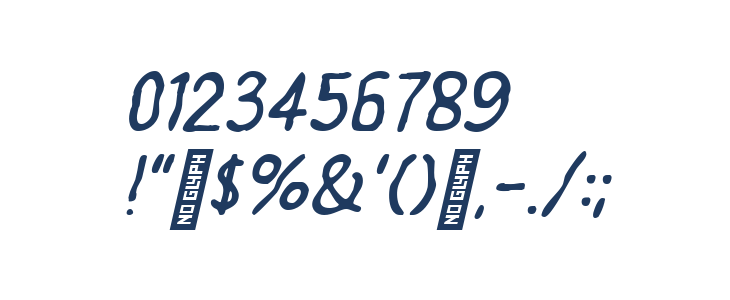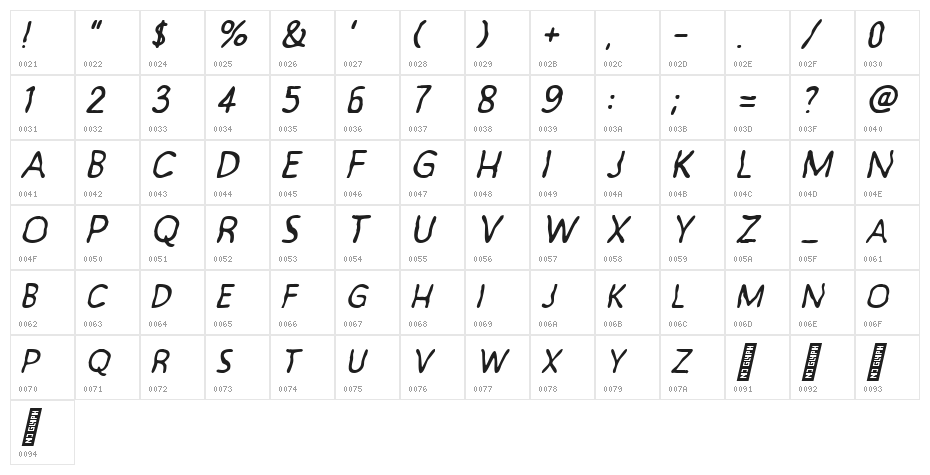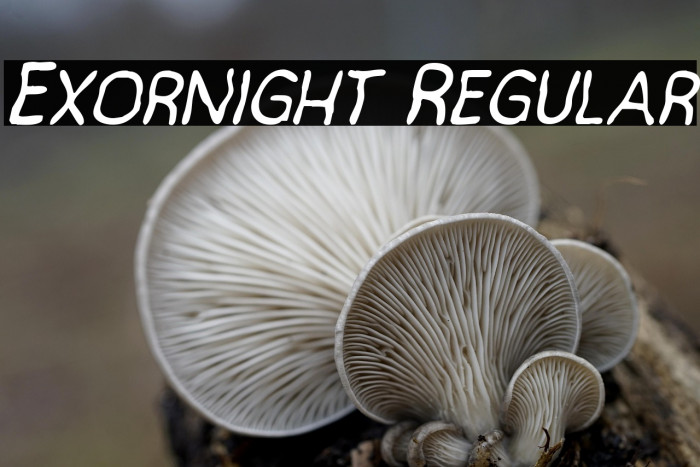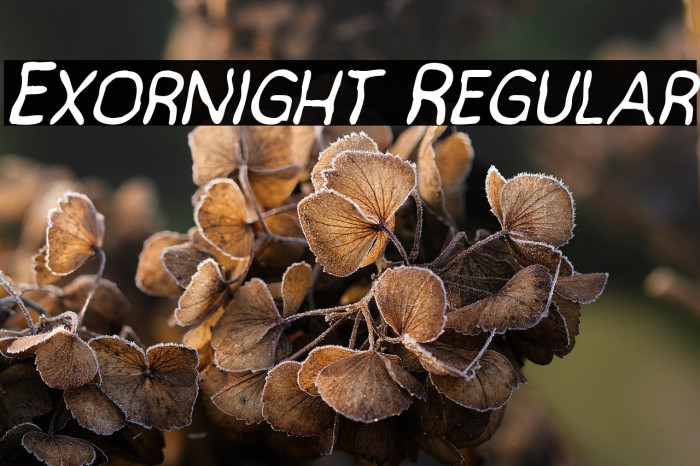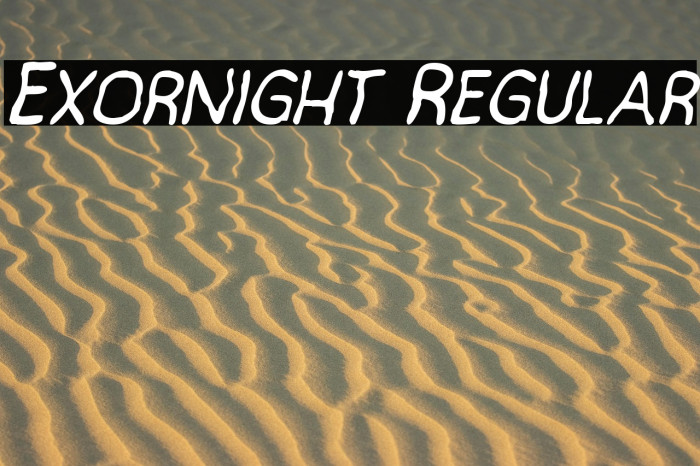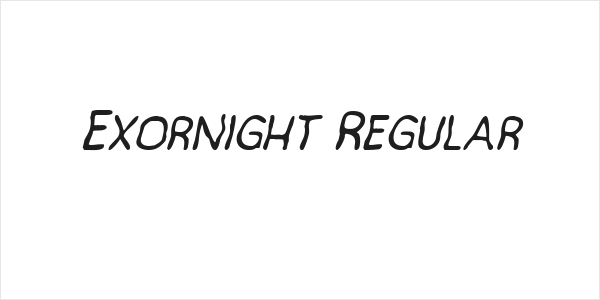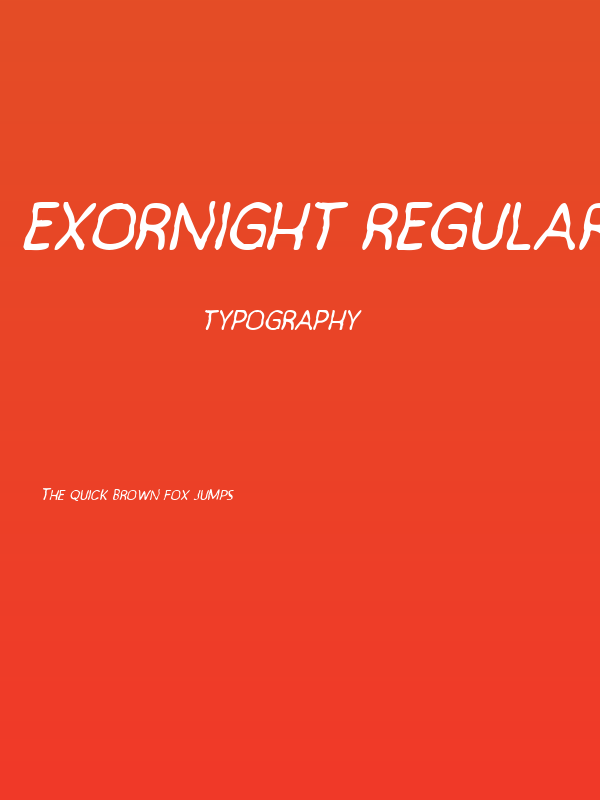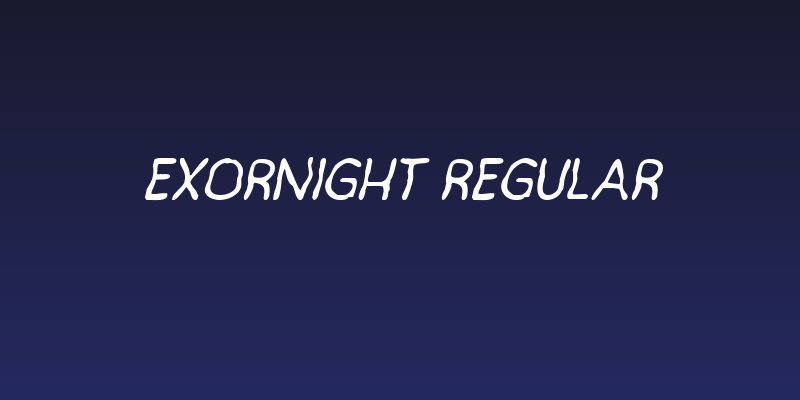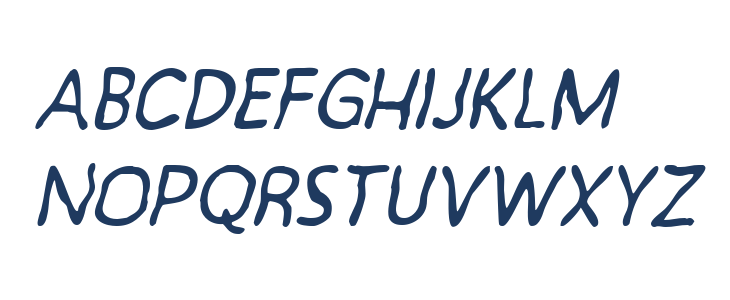
Exornight Regular Font
Exornight Regular Description
This font features a playful and dynamic handwritten style, characterized by its fluid and slightly irregular strokes. The letters have a casual, yet artistic appearance, making them suitable for creative projects. The uppercase and lowercase letters maintain a consistent style, with rounded edges and a slight slant that adds to the font's informal charm. Numbers and special characters are designed with the same whimsical touch, ensuring a cohesive look across all text elements. The font's unique personality makes it ideal for projects that require a personal or artistic flair.
| Use Case | Headlines, Logos, Artistic projects |
| Proposed Projects | Ideal for greeting cards, invitations, posters, and artistic branding. |